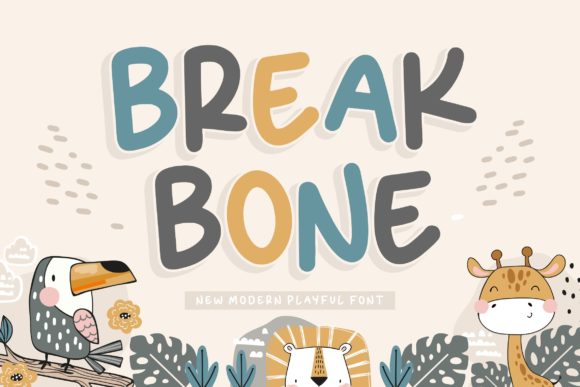
Introducing Break Bone – the font that infuses your designs with a touch of whimsy and wonder! This captivating display font boasts a captivating style that dances across the screen, leaving an unforgettable impression.
Crafted with meticulous attention to detail by the visionary Balpirick, Break Bone exudes a playful charm that adds a delightful twist to any design. Its quirky nature gives it an edge, making it the perfect choice for those seeking to break free from the mundane and embrace the extraordinary.
Whether you're a seasoned designer or just starting your typographic journey, Break Bone is the perfect companion to elevate your creations. Its versatility knows no bounds, effortlessly adapting to a myriad of design styles. From playful dashboards to enchanting invitations, this font adds a touch of magic to every project.
With Break Bone in your design arsenal, you'll find yourself grinning from ear to ear as you witness how it transforms your ordinary ideas into captivating masterpieces. So, embrace the playful side of typography and add Break Bone to your collection today – your designs will thank you for it!